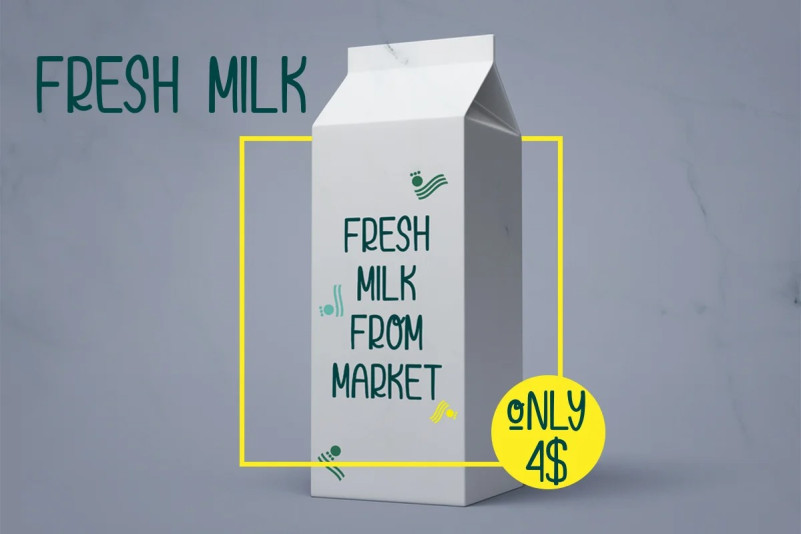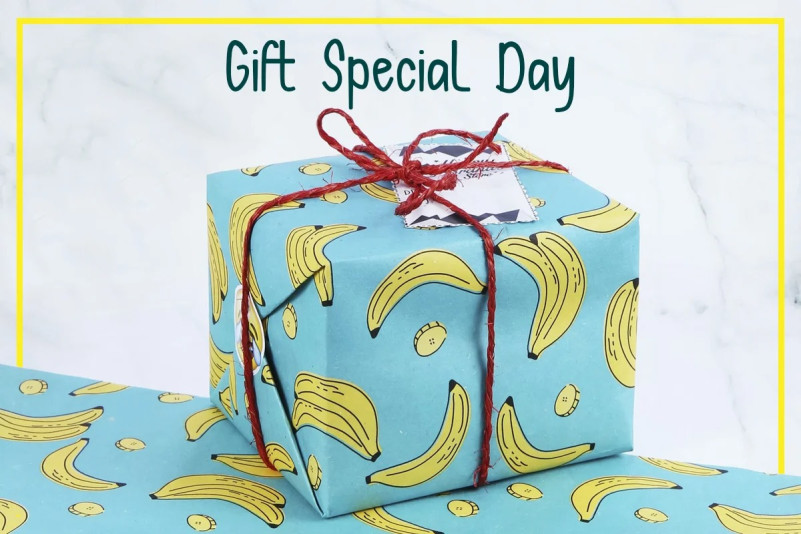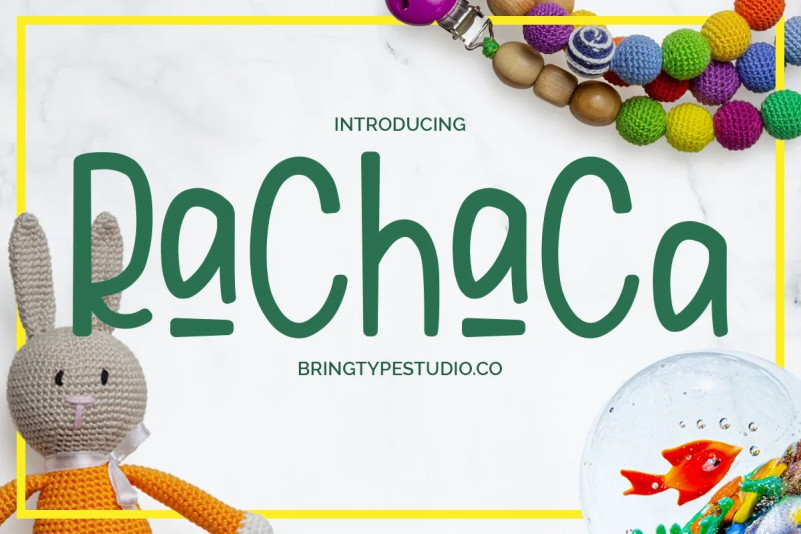
Rachaca Font
Hello …. Rachaca Handwriting Font is a very unique and cute font with cute handwriting with a distinctive characteristic that is different from the others, this font is perfect for you to use in any case such as Funny moment, posters, promos, videos, pictures etc.